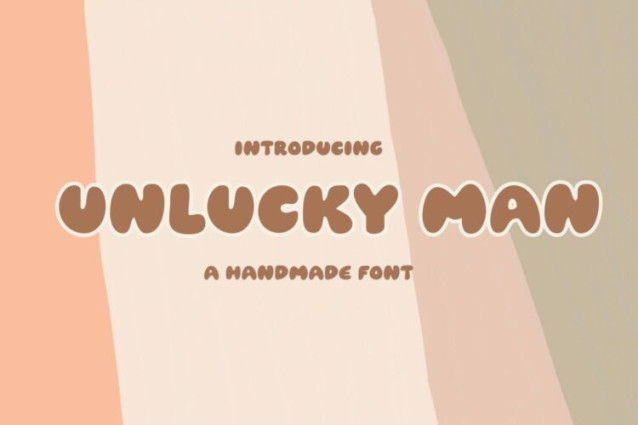
Unlucky Man Font
Unlucky Man Font is a chunky, comic, and cartoon display font. With its neat and joyful personality, this font will enhance any project you wish to create!